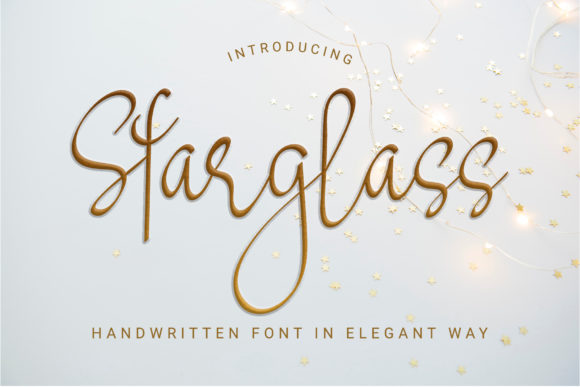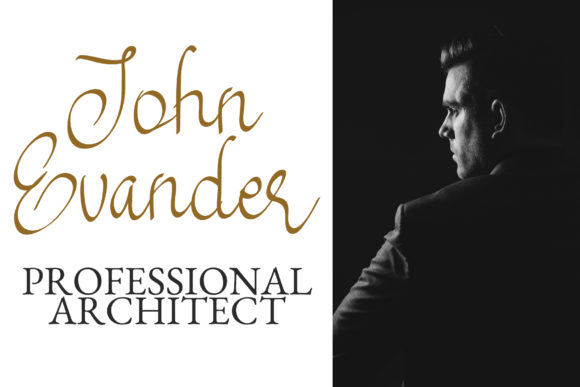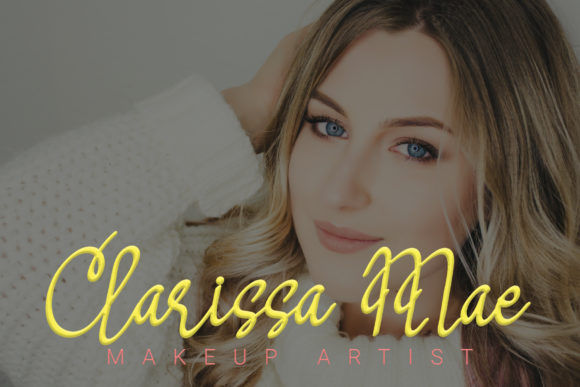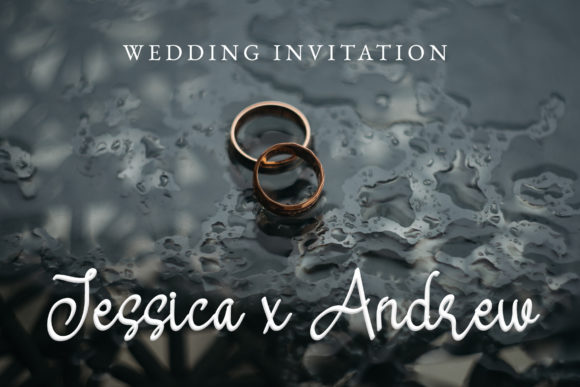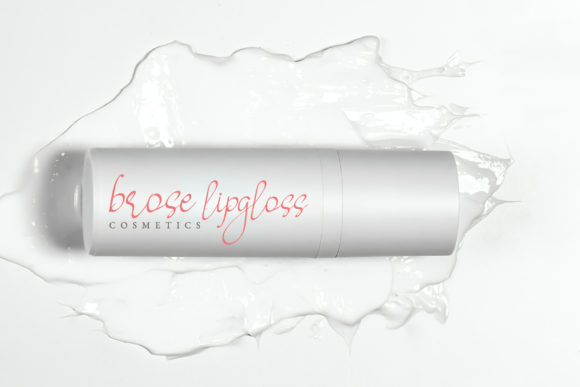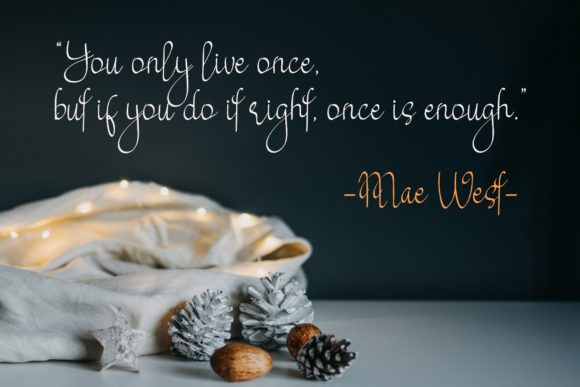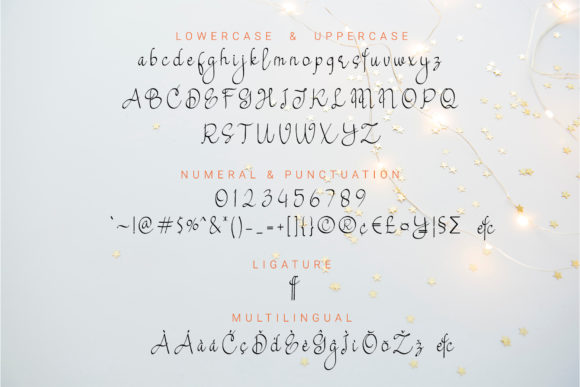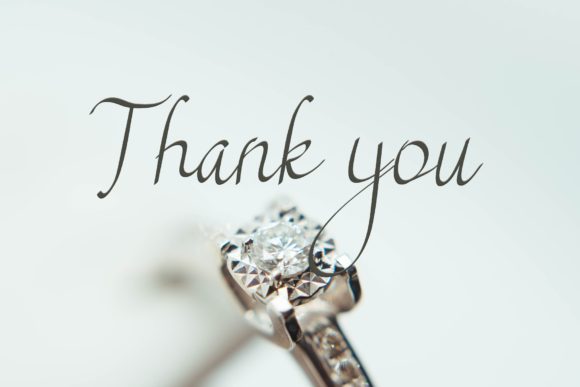
Starglass Font
About Starglass Font
Starglass is a sweet, soft hand-lettered script font. Its playfully rounded characters make it the perfect font for creating stunning stationery or nature-themed art.
This font is PUA encoded which means you can access all of the beautiful glyphs and swashes with ease! It also features a wealth of special features including alternate glyphs and ligatures.